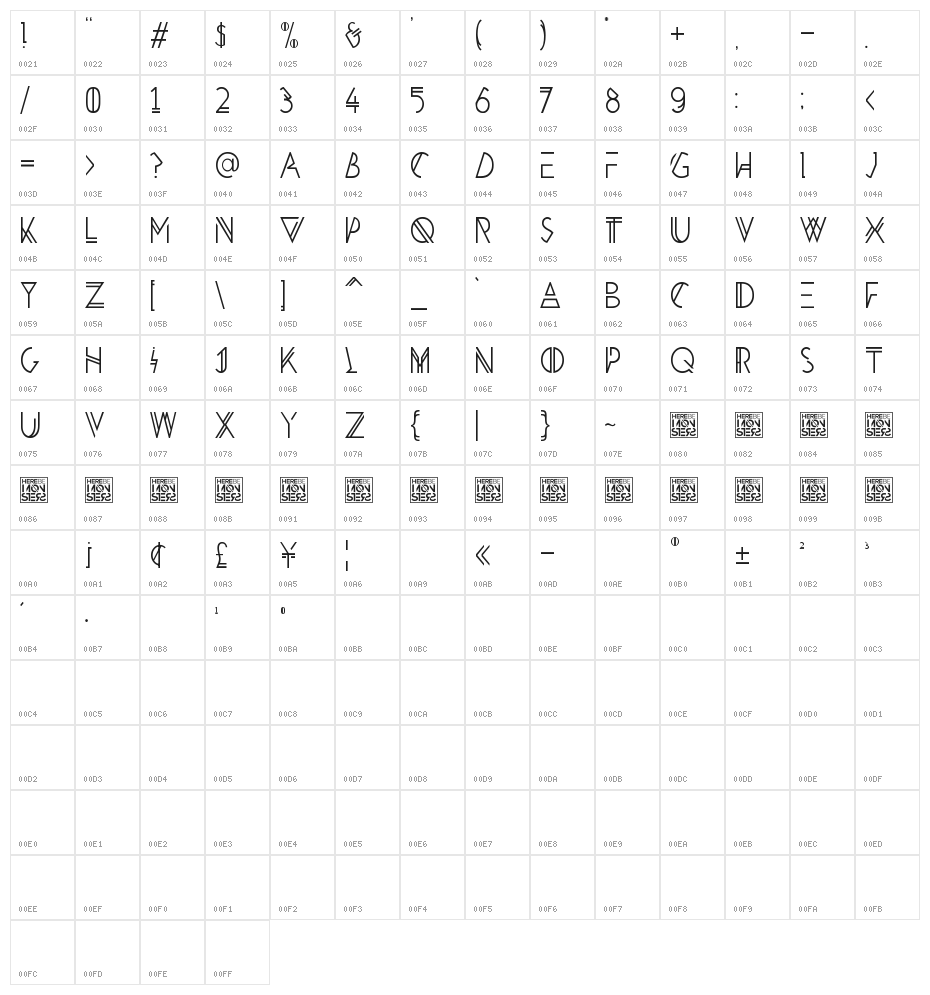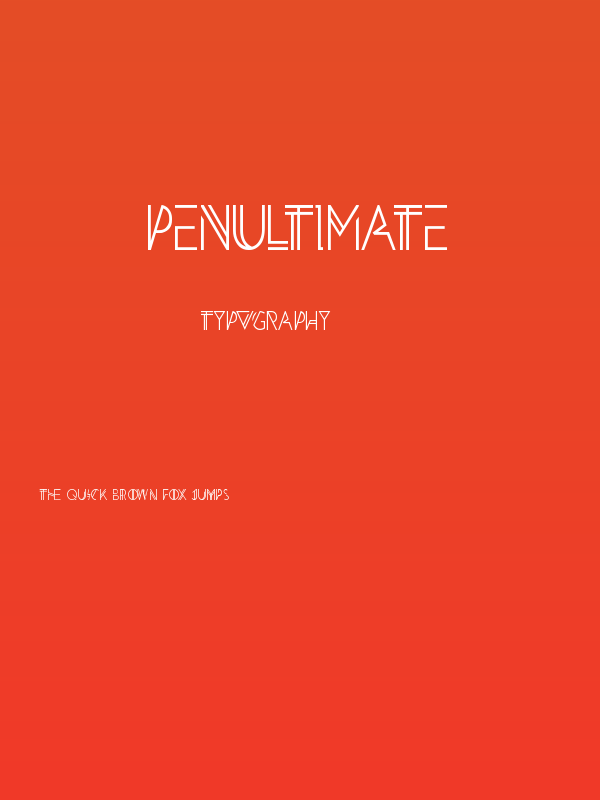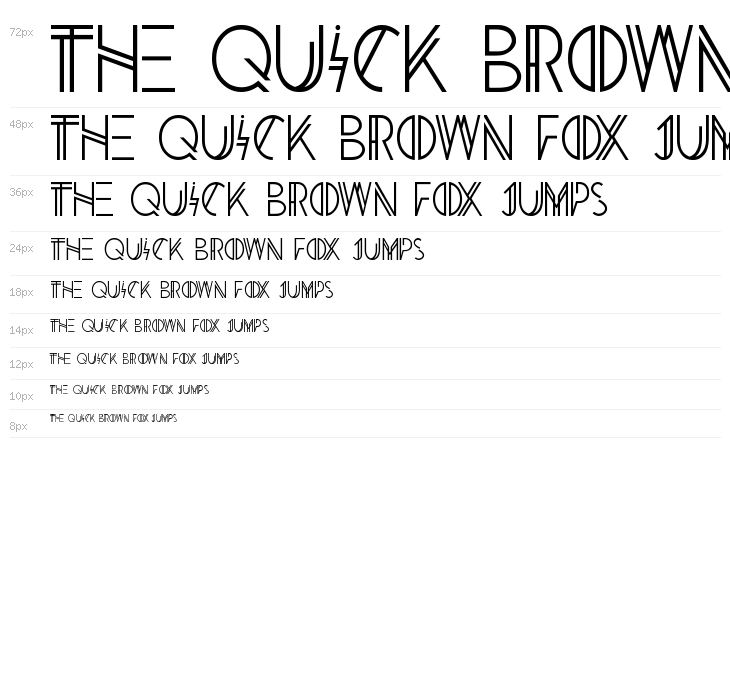
Penultimate Font
Penultimate Description
This font features a unique and modern geometric design, characterized by its angular shapes and clean lines. The uppercase letters are bold and striking, with a futuristic aesthetic that emphasizes symmetry and balance. The lowercase letters maintain the same geometric style, offering a cohesive look across different text cases. Numbers and special characters are designed with the same attention to detail, ensuring consistency throughout. The overall appearance is both artistic and functional, making it suitable for a variety of creative projects.
| Proposed Projects | Ideal for branding, posters, album covers, and any project requiring a futuristic or artistic touch. |